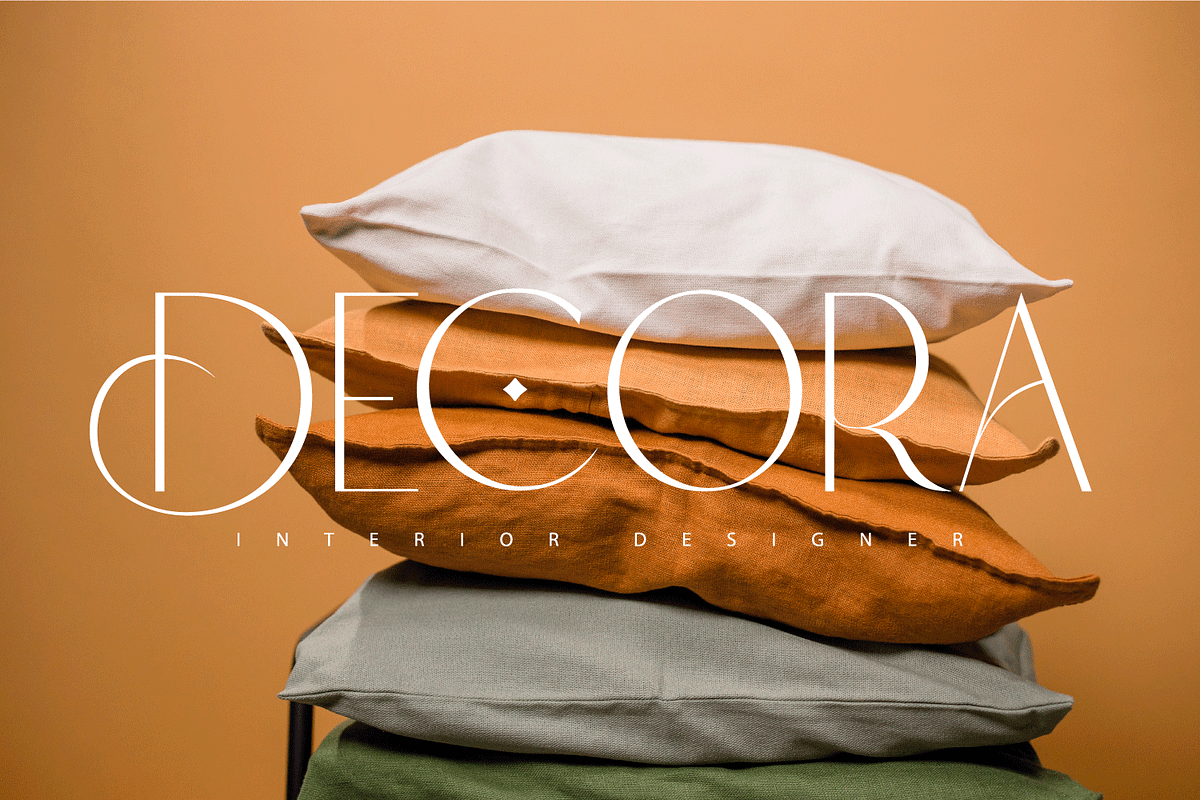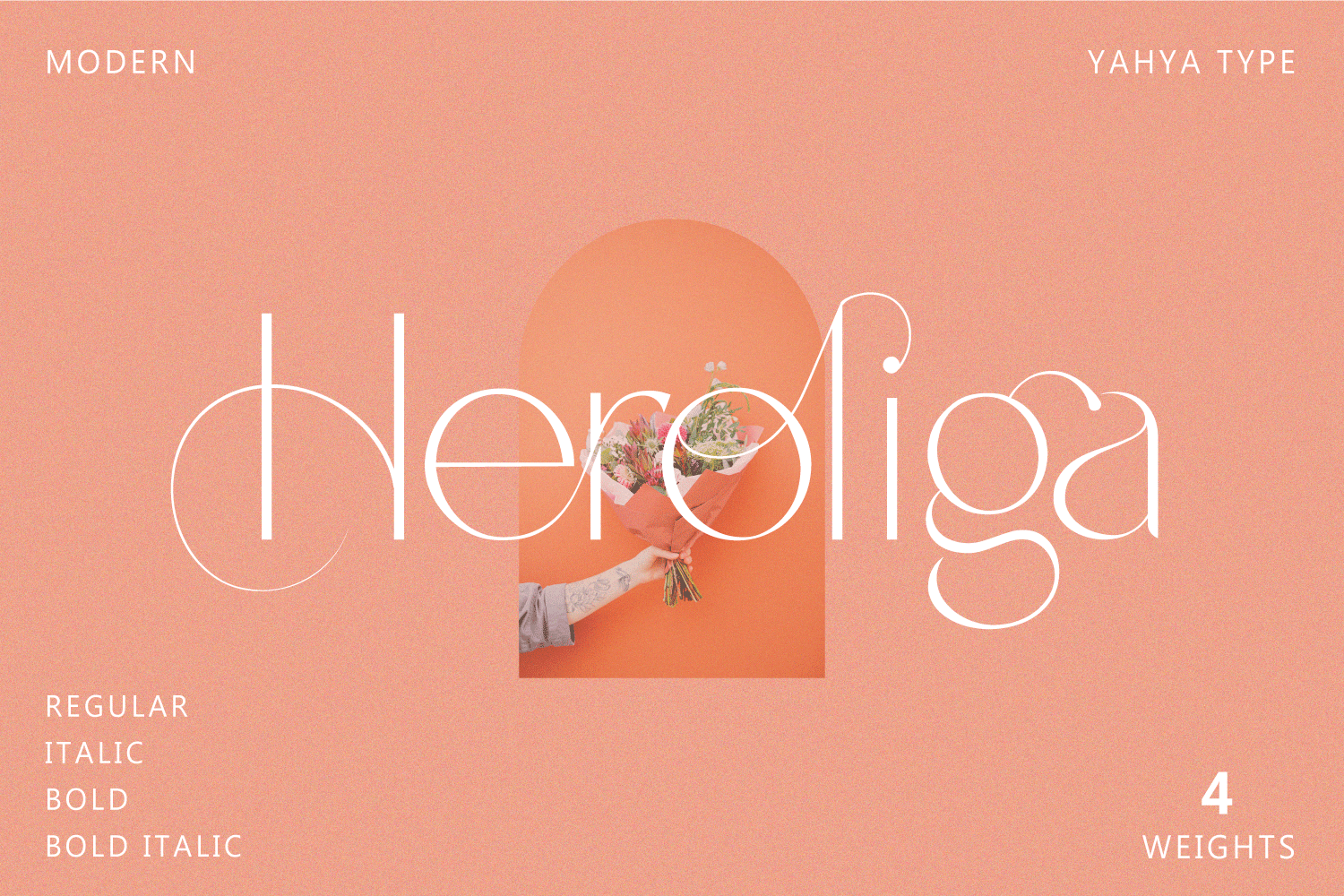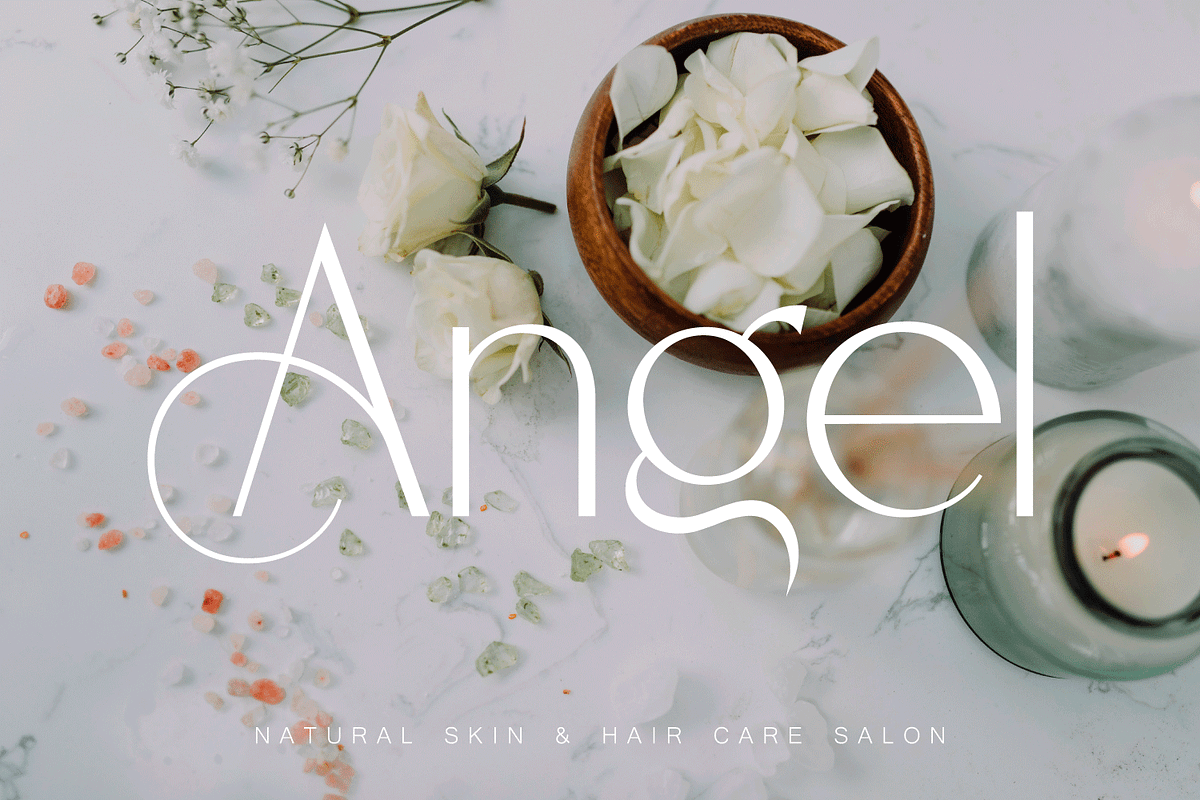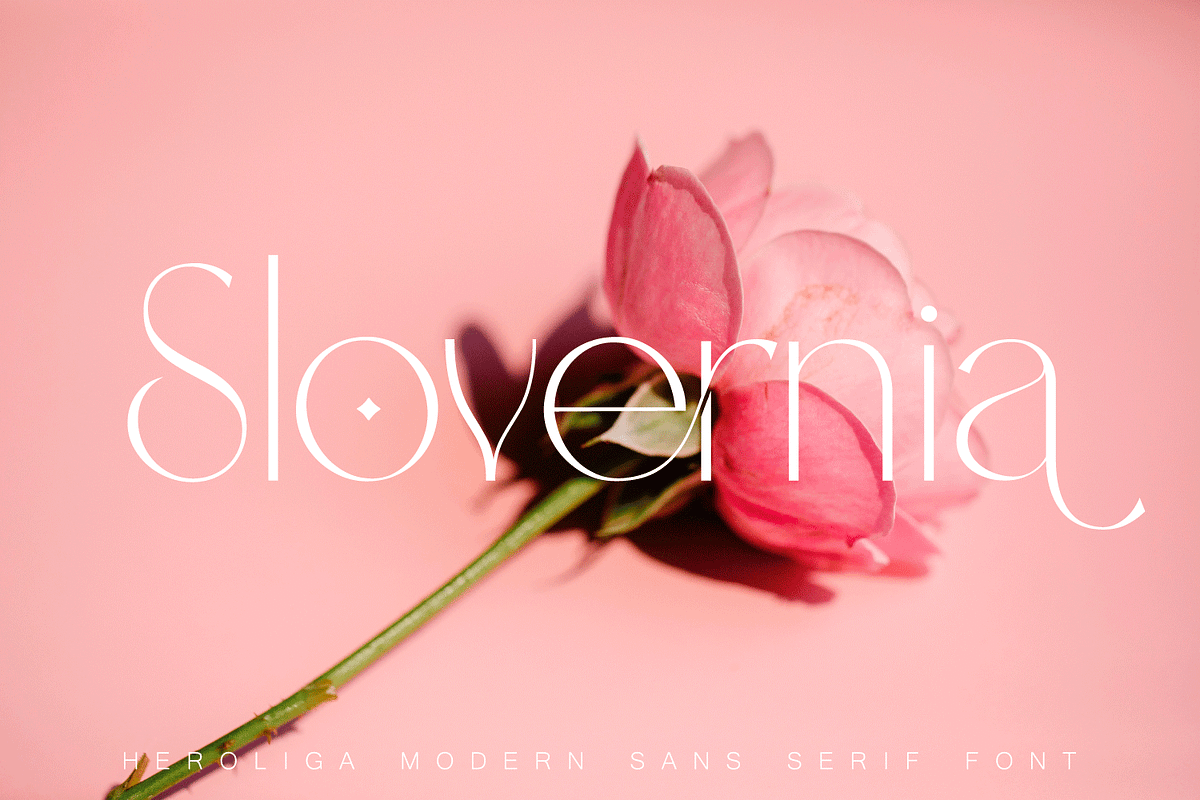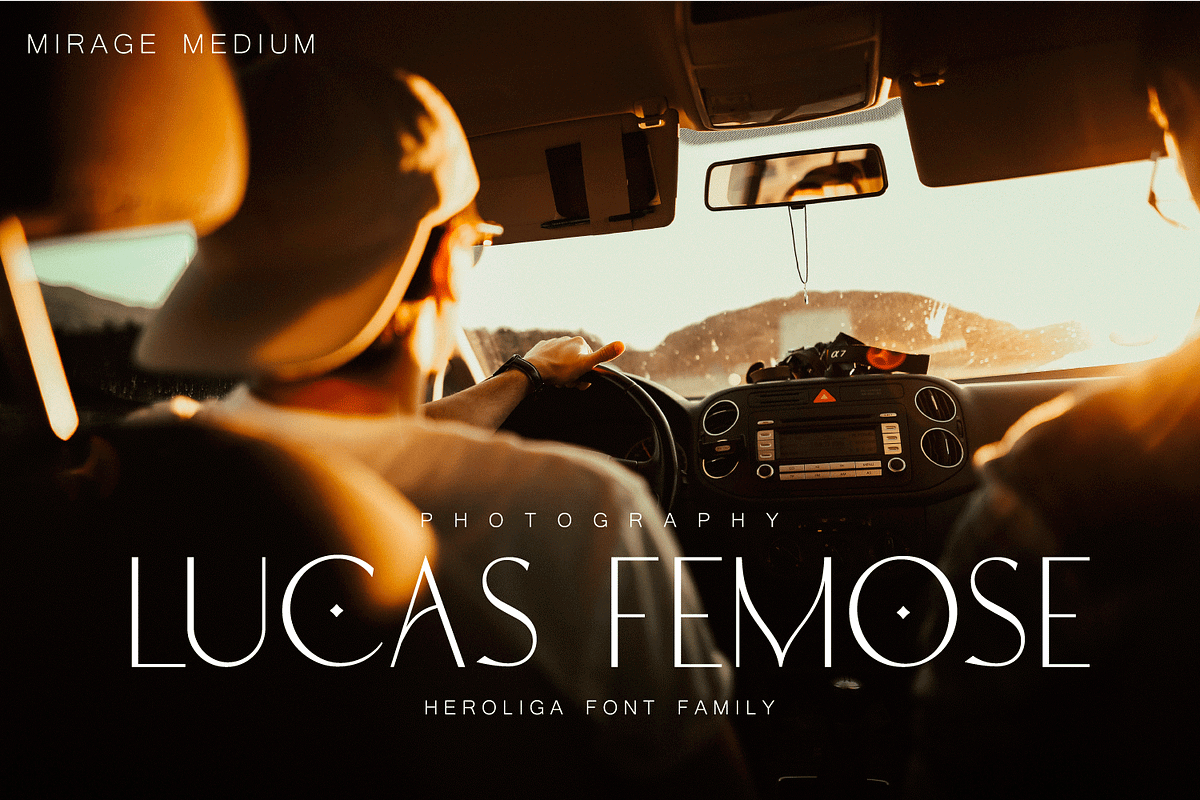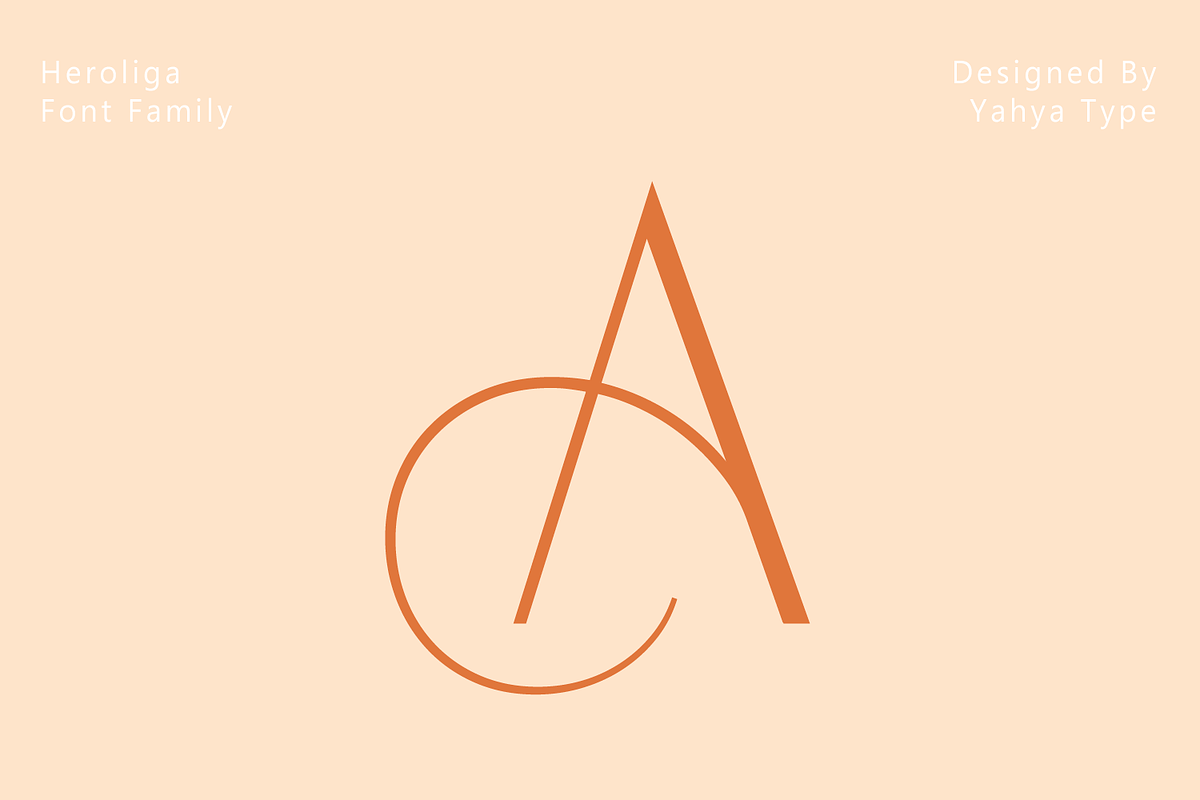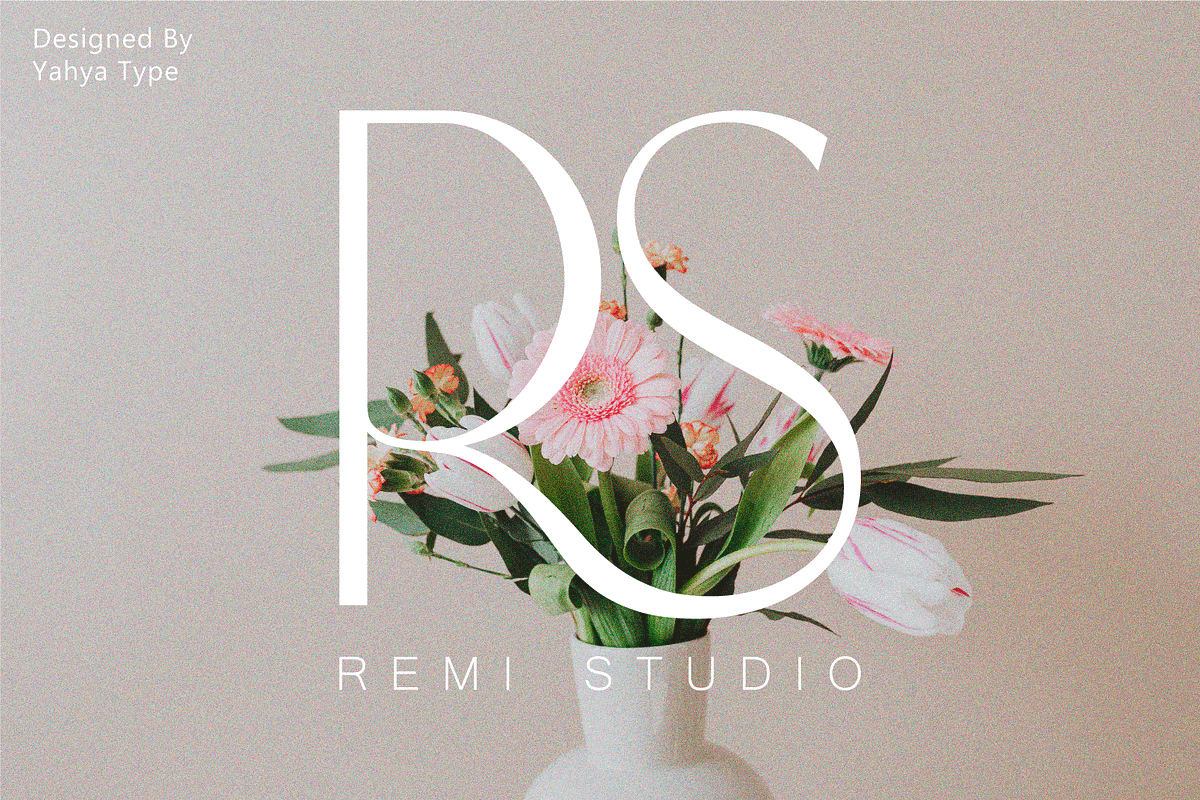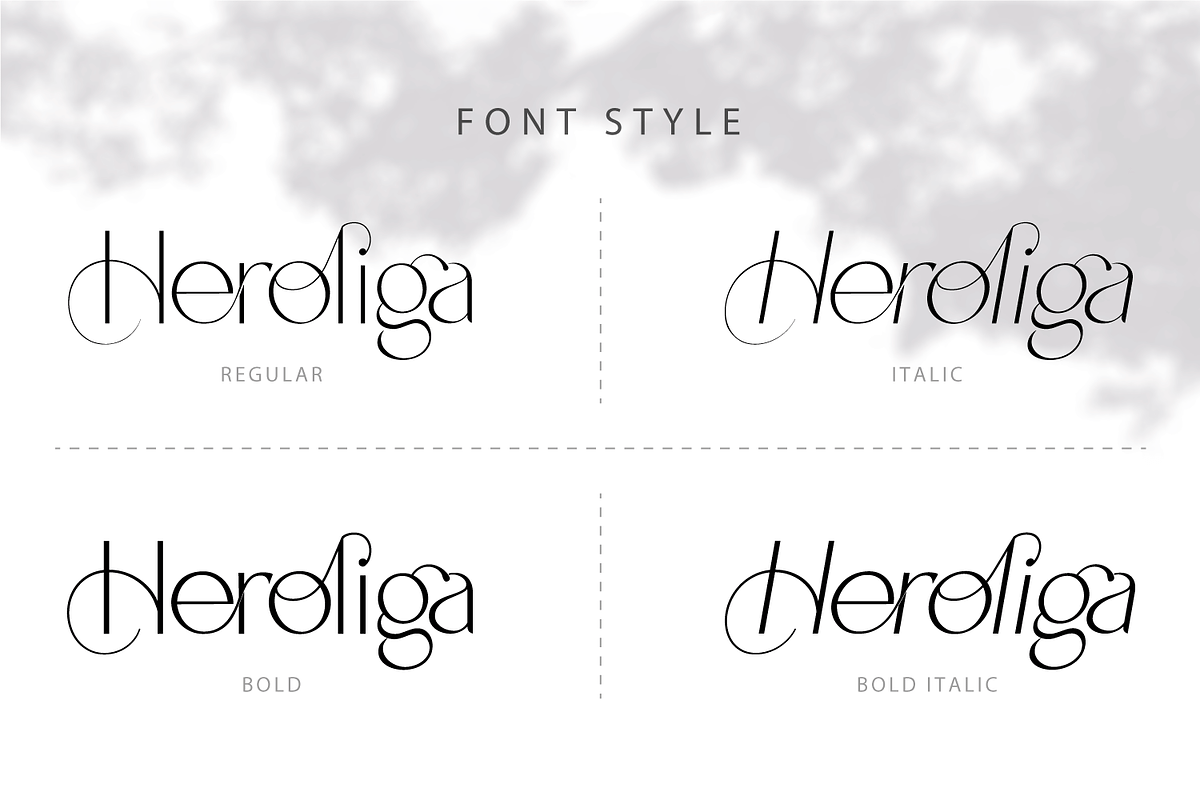
Heroliga - Modern Sans Serif Font
Heroliga is an elegant & modern sans serif font with special alternative letters and with multilingual support. Heroliga is perfect for logo design, magazine headers, product packaging, branding projects, clothing or simply as a stylish text overlay to any images or websites.
• Comes with regular, italic, bold and bold italic font styles. • Uppercase & lowercase letters, numbers, punctuation Ligature & Huge Stylistic alternate, Multilingual support.